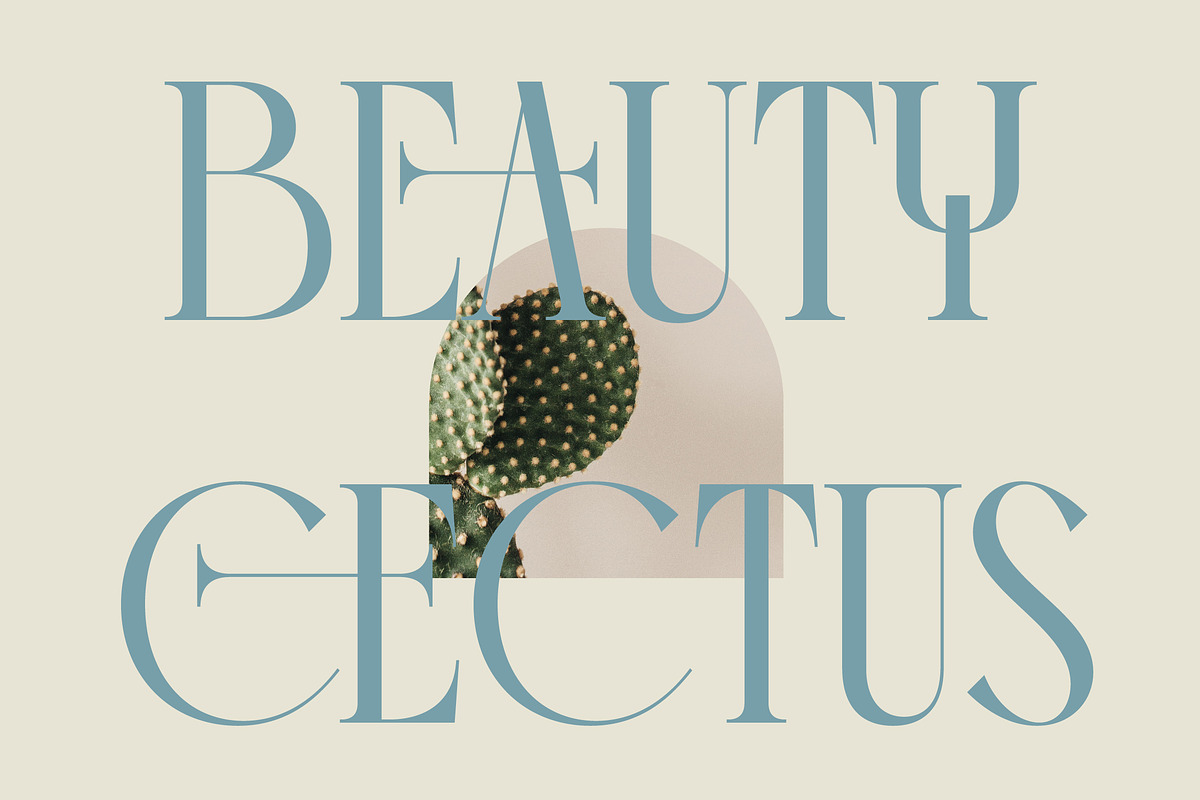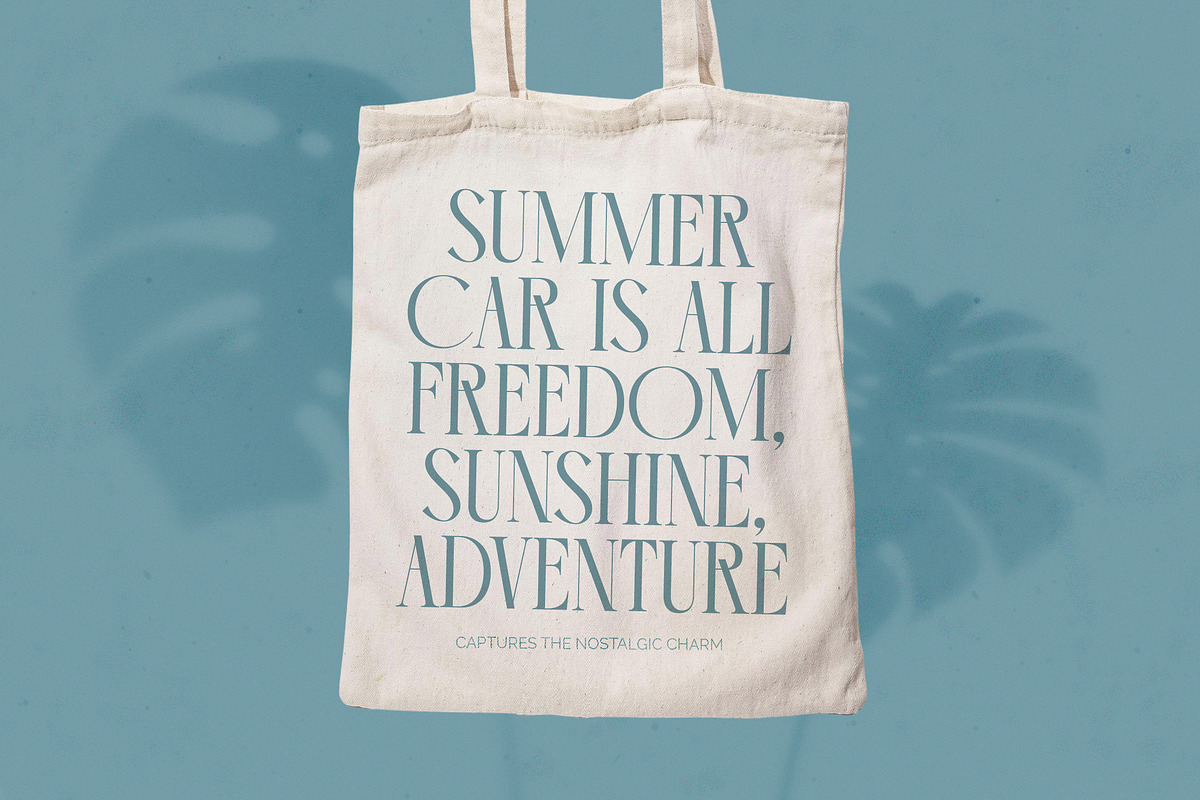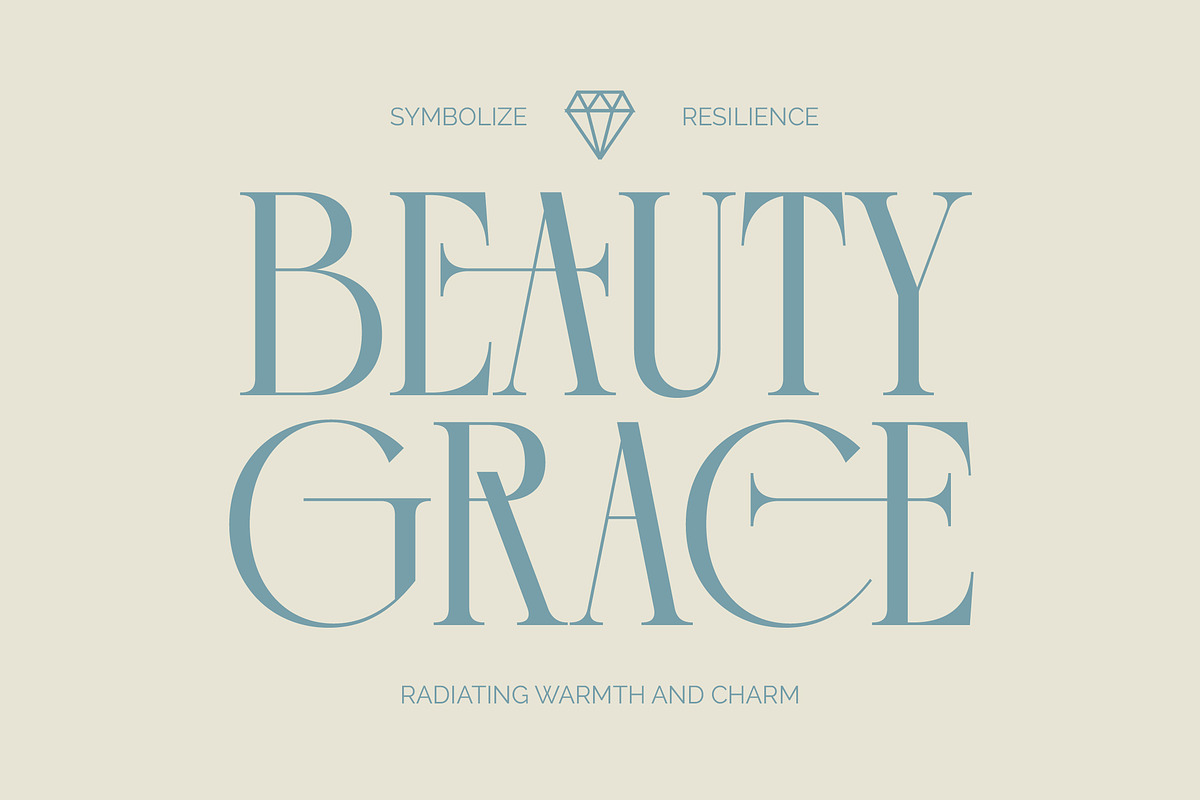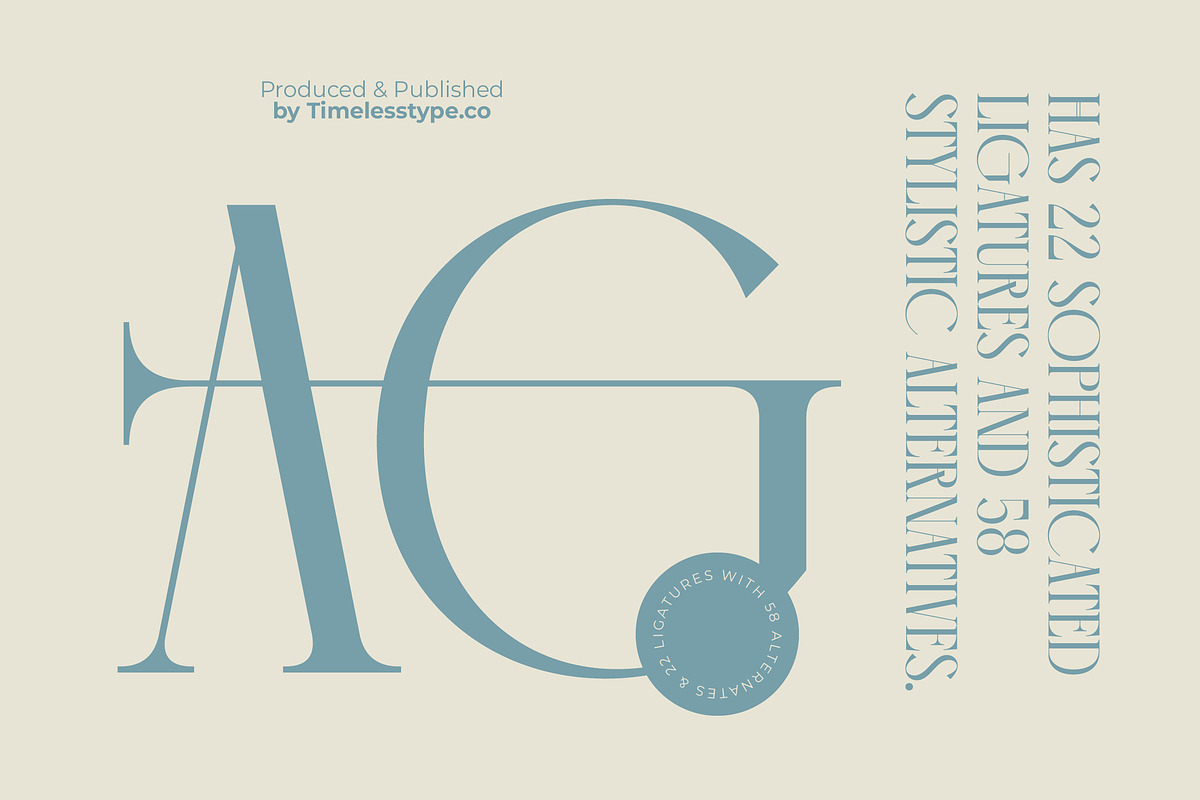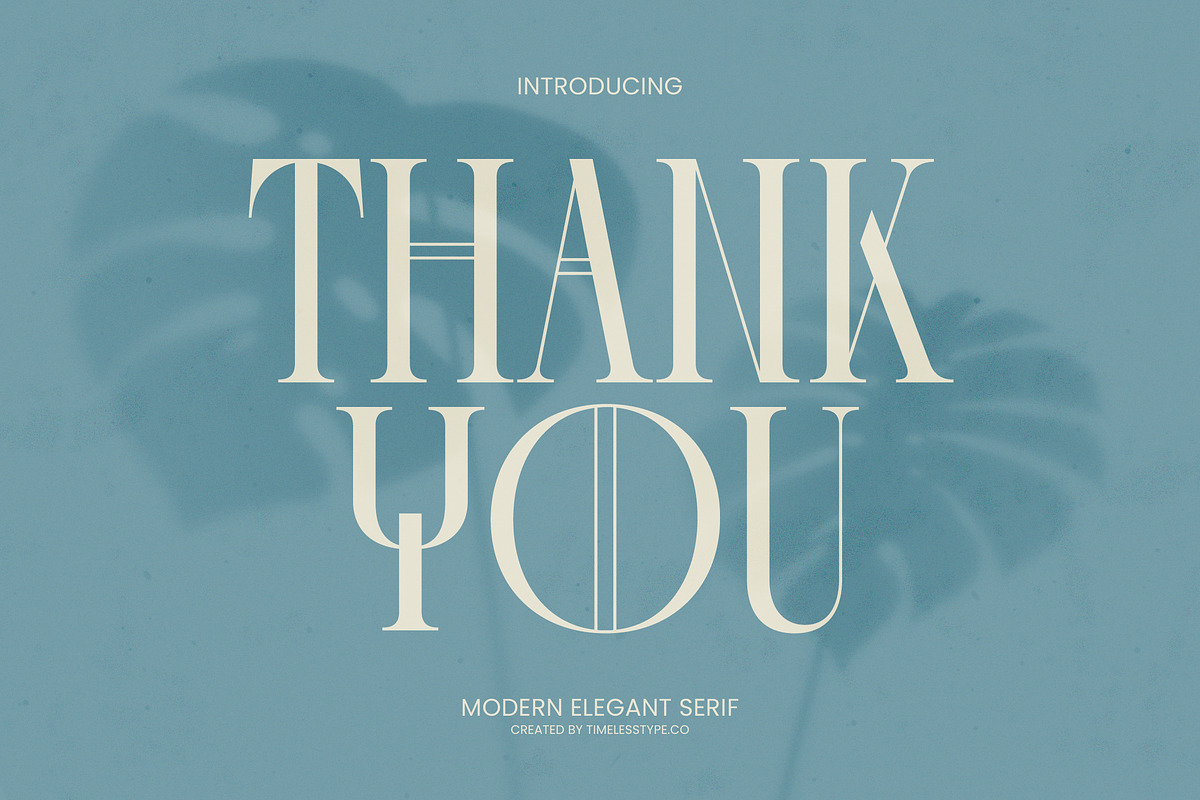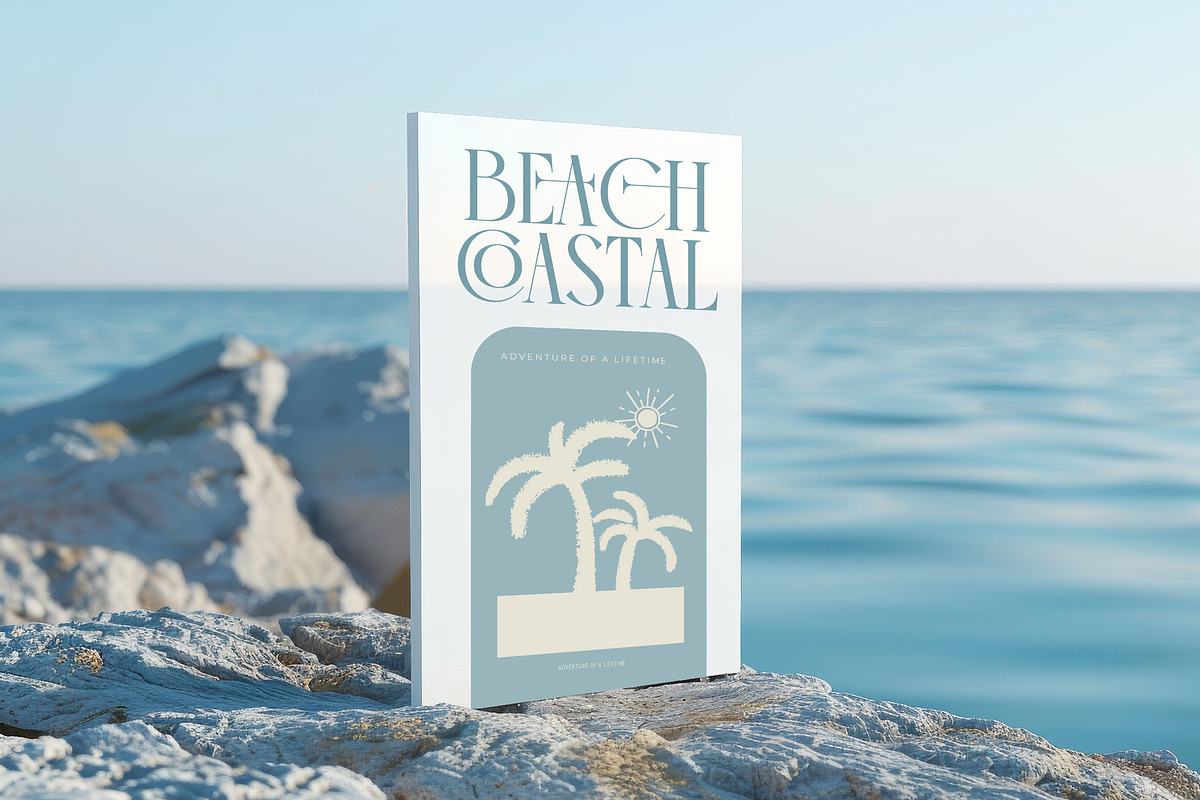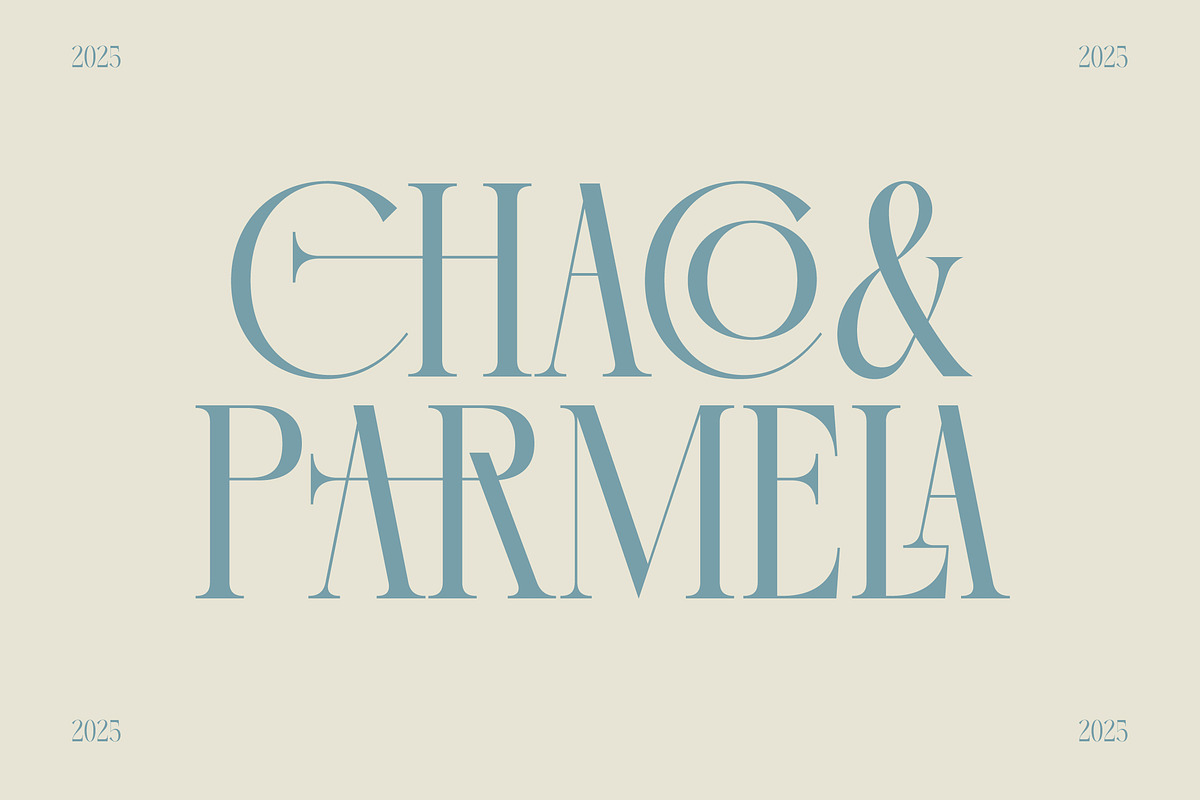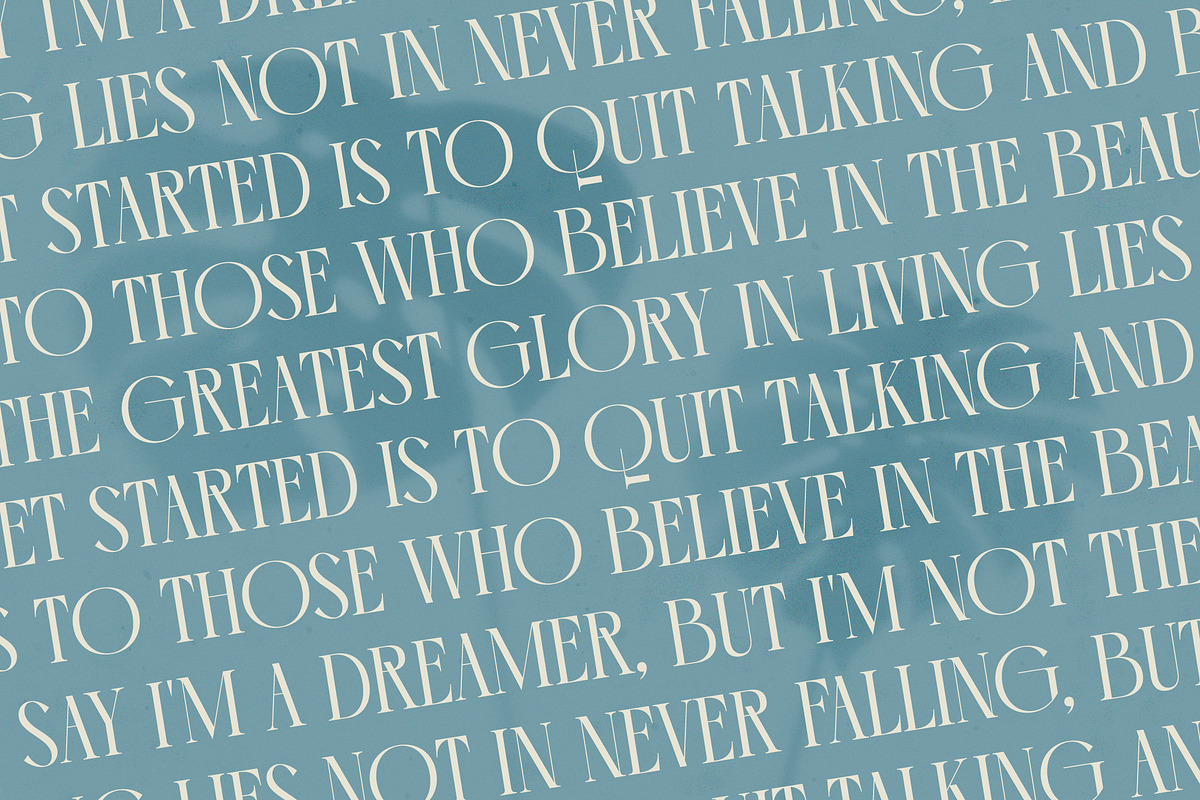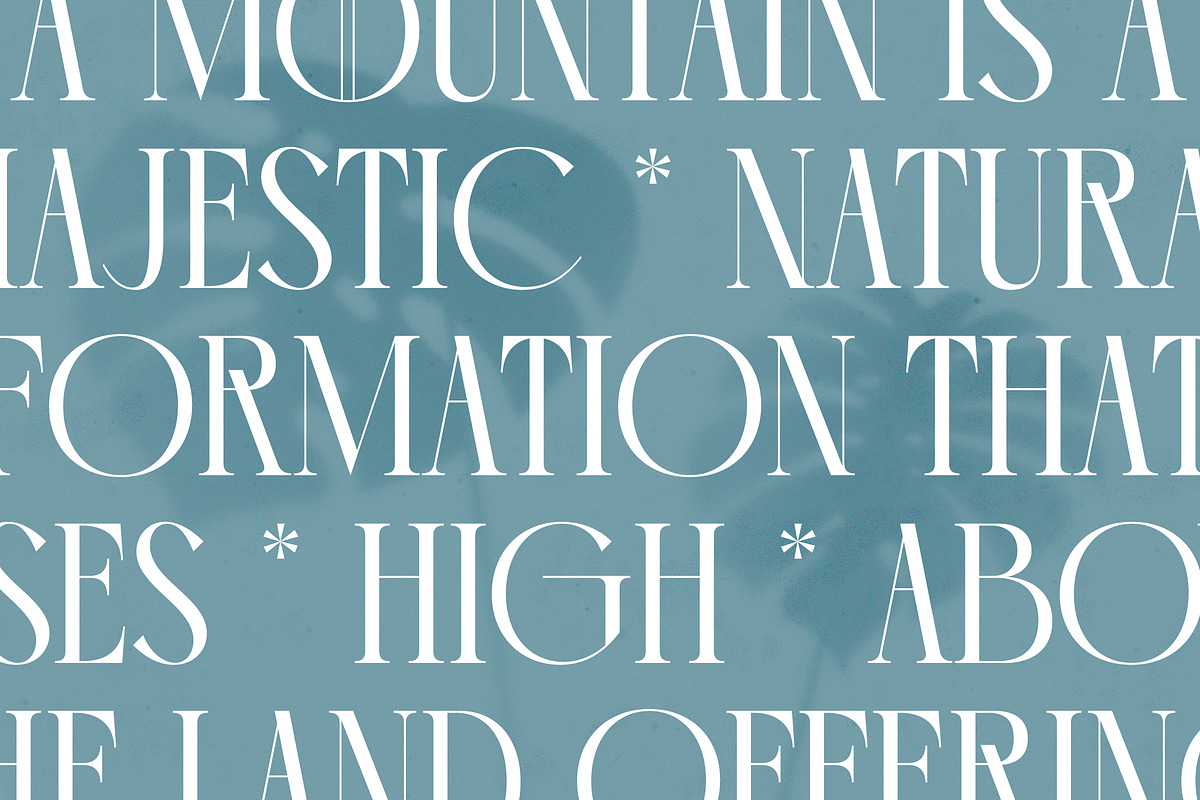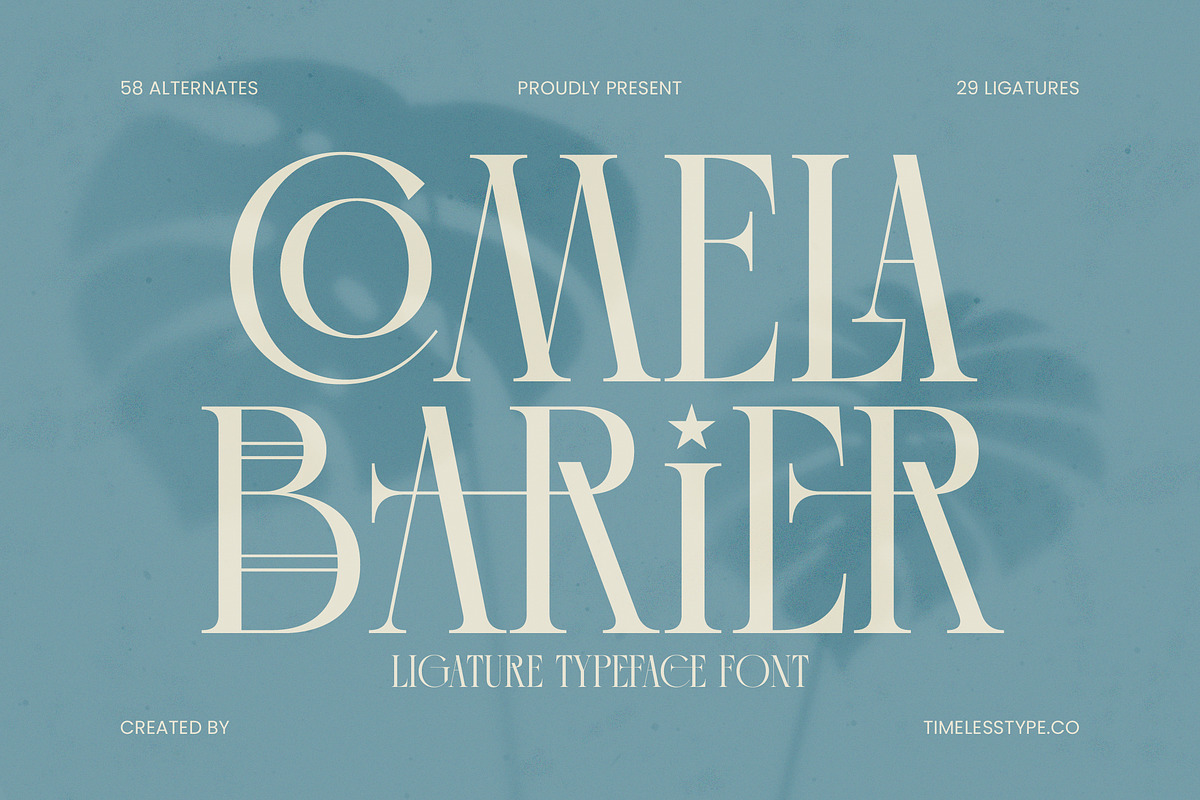
Comela Elegant Ligature Serif
Step into a world of refined elegance with Comela, a typeface that redefines the boundaries of modern sophistication. This font transforms every word into a visual masterpiece, blending classical structure with an avant-garde flair that commands attention.
Drawing inspiration from the intersection of mid-century high-fashion editorials and contemporary minimalist architecture, this typeface captures a timeless aesthetic. Its intricate curves and sharp terminals reflect a sense of deliberate craftsmanship found in boutique design houses and artisanal luxury goods.
As a modern serif display, this typeface is engineered for maximum branding impact, making it the perfect choice for high-end projects requiring a touch of class. The high-contrast serif strokes provide a rhythmic flow that feels both fluid and grounded, establishing itself as an essential luxury typography tool for any editorial font collection.
Tapping into the current modern serif trend, this typeface meets the demand for character-driven typography that tells a unique brand story. It stands out among editorial display fonts by offering a bespoke look that feels custom-made, ensuring your designs remain at the forefront of the global creative industry.
This versatile font is a dream for logo design and comprehensive branding systems that need to communicate prestige. Whether it is used for luxury packaging, stylized editorial layouts, sophisticated wedding stationery, or cutting-edge fashion lookbooks, it delivers an unmistakable aura of quality.
Designers will appreciate the extensive set of ligatures and unique alternates that allow for endless customization and creative expression. The font includes comprehensive multilingual support with a wide range of international characters, while the stylistic curves function as elegant swashes to enhance every typographic composition.
- Ligature 29 Alternate 58